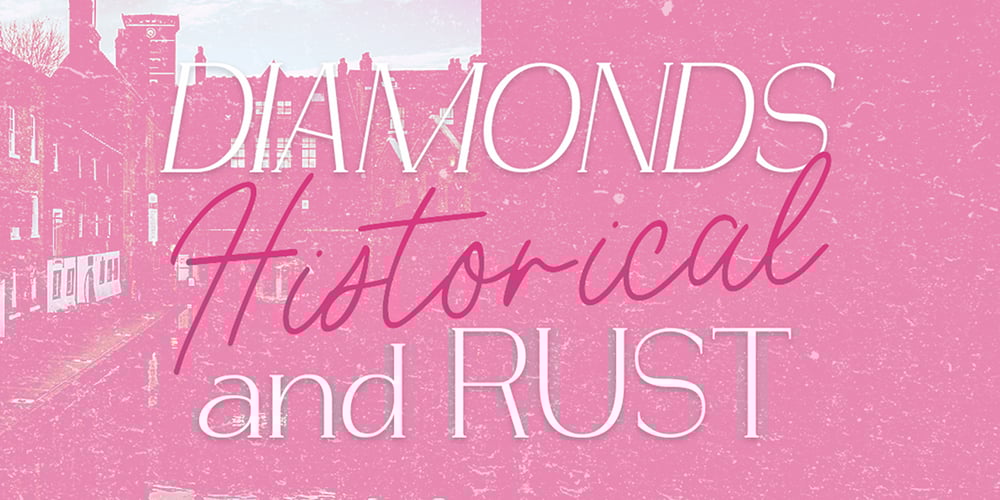
Diamonds and Rust Historical Font Family was designed by Oksana Shudegova and published by OKSHUtypeCO. Diamonds and Rust Historical contains 5 styles and family package options. DIAMONDS AND RUST FONT DUO – a new fresh handmade calligraphy font. DAR Regular – Italic – Outline Script Historical SANS and SCRIPT MULTILANGUAGE OKVery suitable for greeting cards, branding materials, business cards, quotes, posters, and more!This font are perfect for wedding postcard. Or you can create perfect and unique design of your logo, blog, stationery, marketing, magazines and more :)Features: Ligatures Script UpperCase & Lowercase Numerals & Punctuations All style font Multilingualcharacters(AÀÁÂÃÄÅCÇDÐEÈÉÊËIÌÍÎÏNÑOØÒÓÔÕÖUÙÜÚÛWYÝŸŸ ÆŒßÞàáâãäåæçèéêëìíîïðñòóôõöøùúûüýÿ)